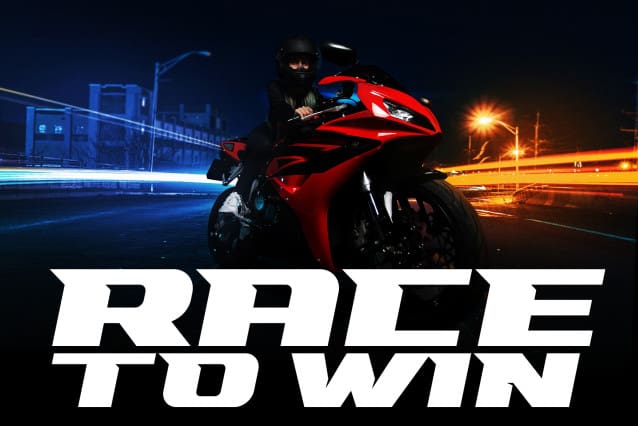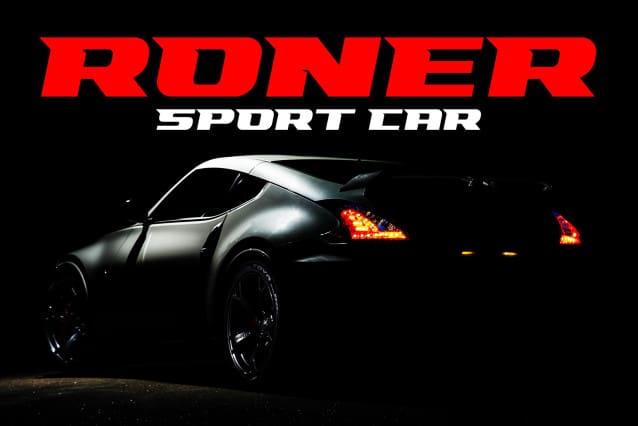
Racing Pro One Font
Racing Pro One Font is a font with a racing theme font,brave, big, strong and fast.Consistent angles combined with a hard, strong style. So it looks very fast and powerful.
Racing Pro One it’s perfect for logotype racing product, racing game covers, sports events, automotive posters, automotive magazine covers, branding, product design, labels and other creative project.